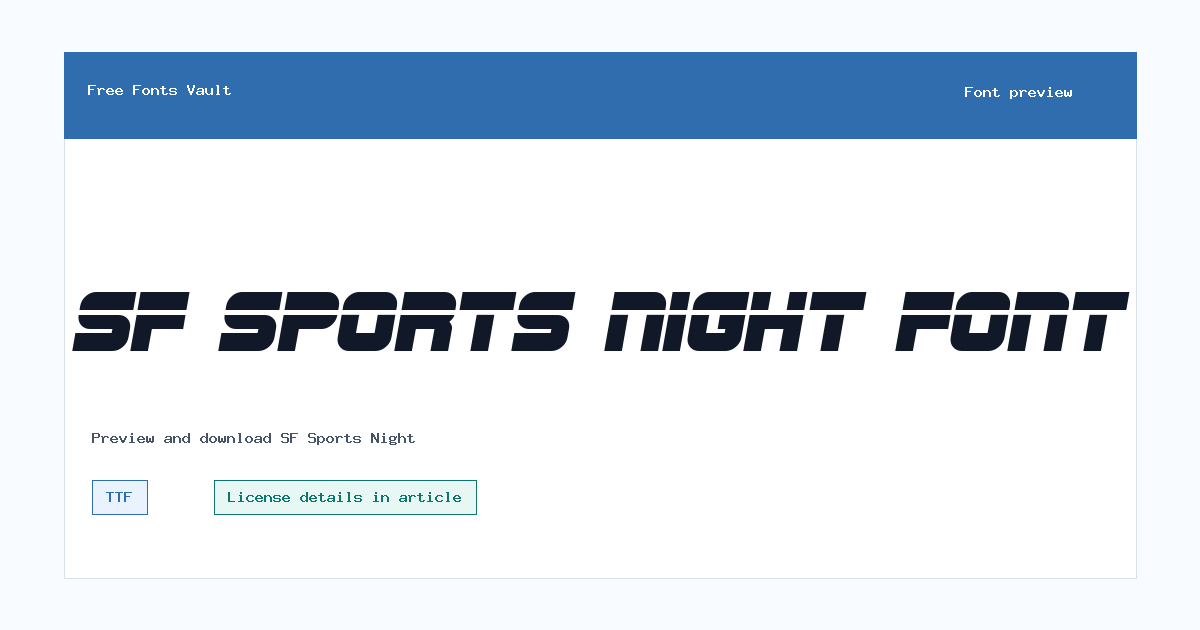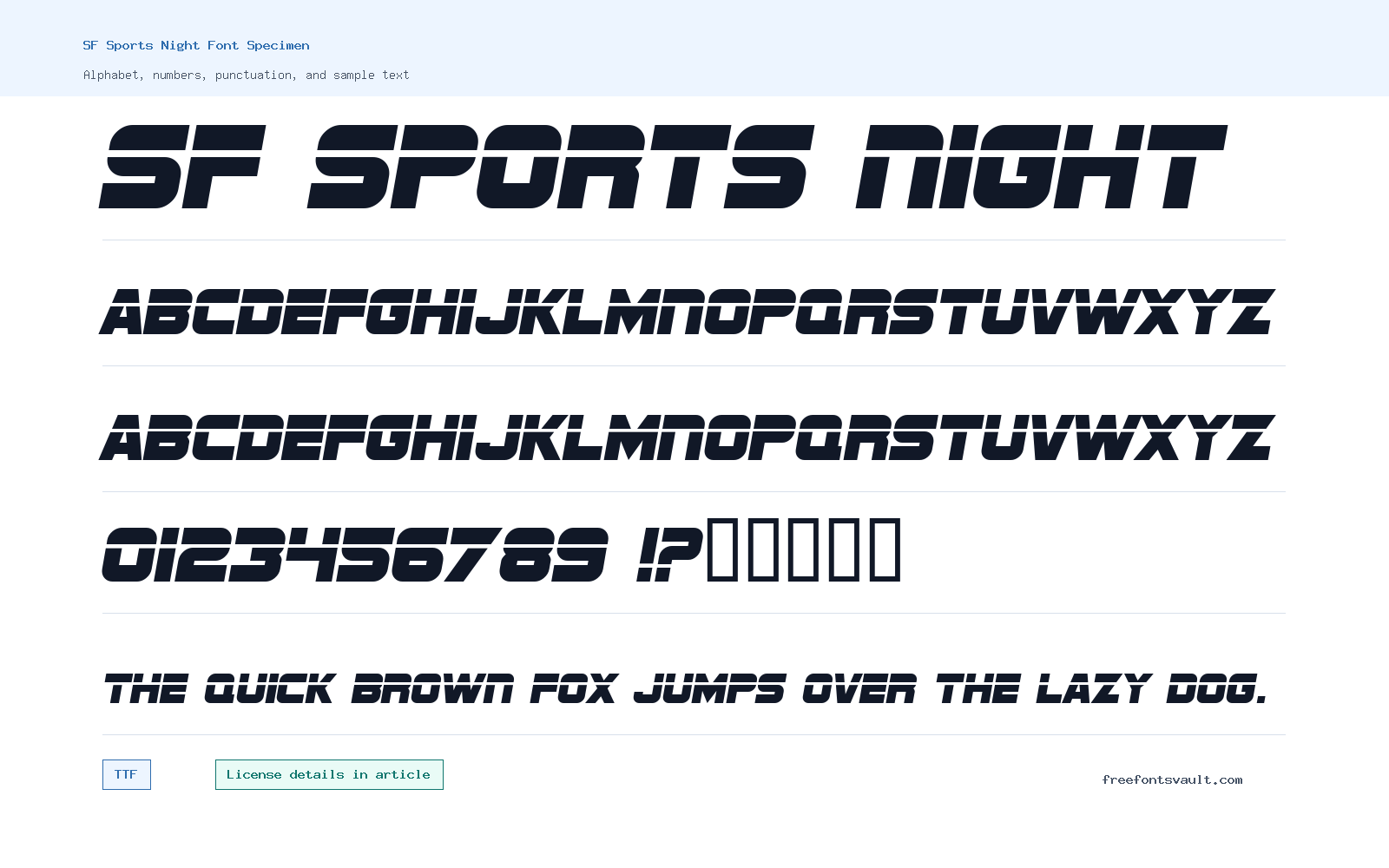
SF Sports Night
SF Sports Night Font
• Designer v1.0 Created by ShyWedge, 1999. (http://welcome.to/ShyFonts)
SF Sports Night is a sharp sci-fi sports display font with the feel of night-game scoreboards, arcade team logos, and futuristic jersey lettering.
About SF Sports Night
SF Sports Night was created by ShyFonts and is commonly listed as a techno or sci-fi display face. Its compact uppercase shapes, angled cuts, and streamlined look make it a strong choice when you want text to feel athletic, mechanical, or game-ready without using a standard block sports font.
Use SF Sports Night for short, high-impact words rather than long reading text. It works best in logos, poster titles, thumbnails, esports mockups, team-name graphics, fan artwork, and bold headings. Test your own wording in the preview first, especially if you need small sizes, punctuation, or mixed-case text, because display fonts like this can lose clarity when used in paragraphs or dense layouts.
• Sci-fi sports display style with compact, angular letterforms
• Suited to uppercase titles, team names, and short graphic text
• Part of a wider SF Sports Night family shown by font sites with upright, alternate, and NS variants
• Sports logos and jersey-style lettering
• Esports graphics and gaming thumbnails
• Poster titles and event artwork
• Arcade-inspired headers
• Fan art and personal design mockups
SF Sports Night is attributed to ShyFonts / Shy Fonts. The font file notes version 1.0 created by ShyWedge in 1999.
Keep the font large, use it for short words or names, and give the letters enough spacing. Pair it with a plain sans serif for descriptions, menus, captions, or body copy so the display lettering stays readable and impactful. For best results, preview the actual team name, event title, or channel graphic before exporting. Wide letters and angular cuts can look excellent at poster size but cramped in small badges, so adjust tracking and contrast before finalizing a design.
What kind of font is SF Sports Night?
It is a sci-fi sports display font with a scoreboard, arcade, and futuristic jersey feel.
Is SF Sports Night good for body text?
No. It is better for titles, logos, posters, thumbnails, and short display text. Use a simpler font for paragraphs or small captions.
Who designed SF Sports Night?
The font is attributed to ShyFonts / Shy Fonts, and the local font note names ShyWedge with a 1999 version note.